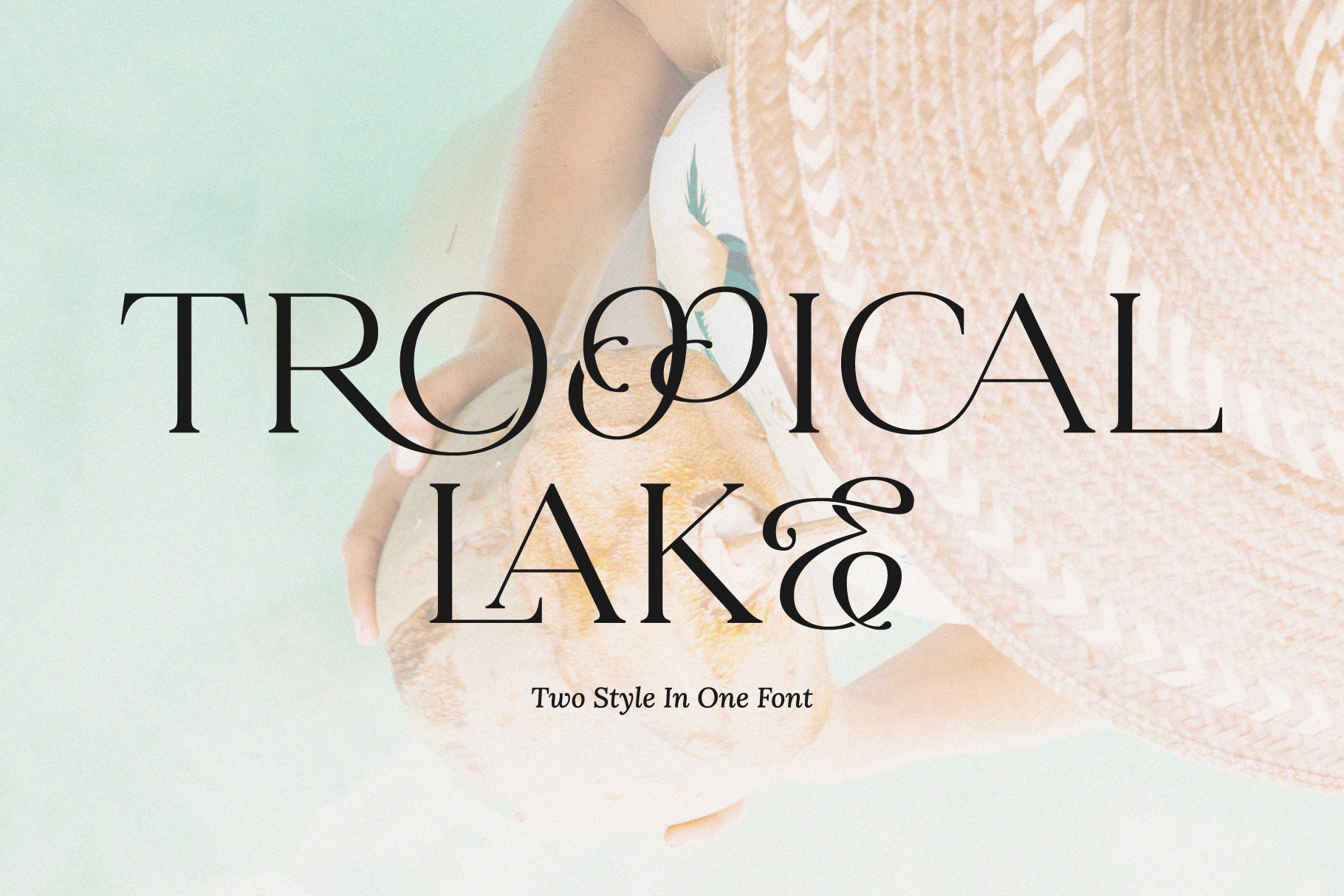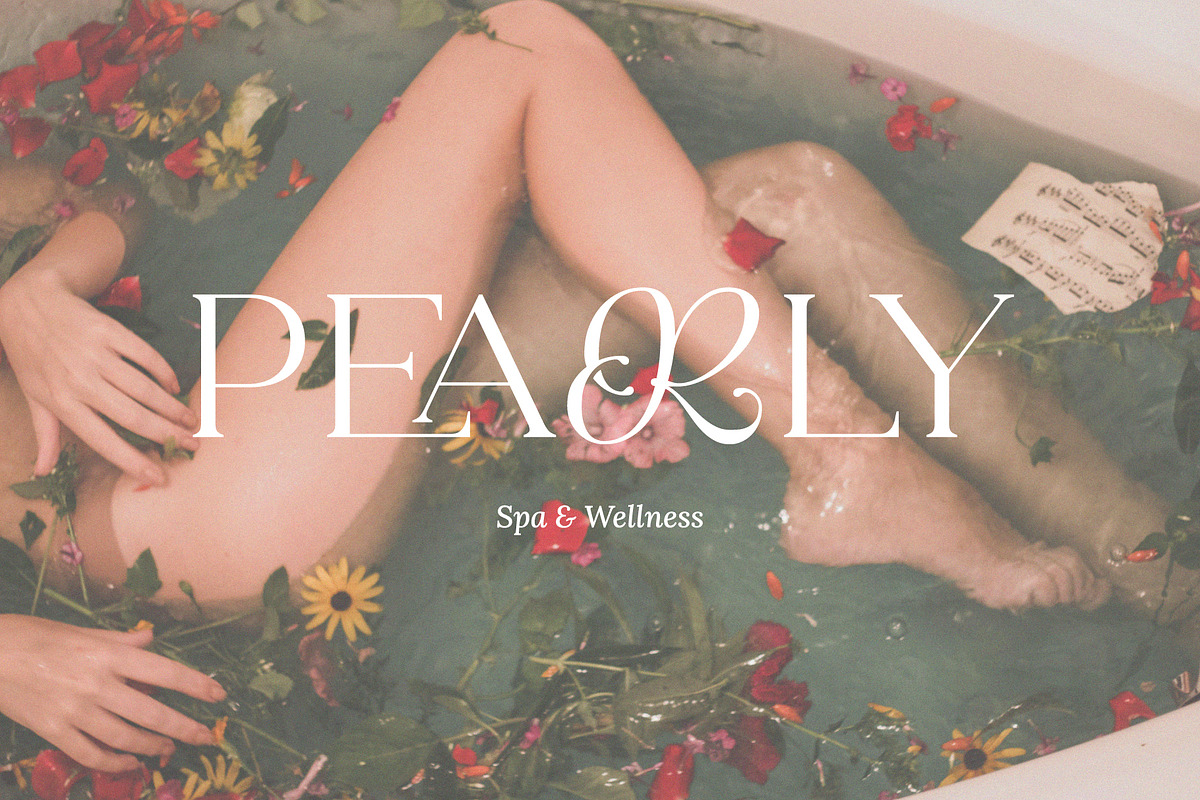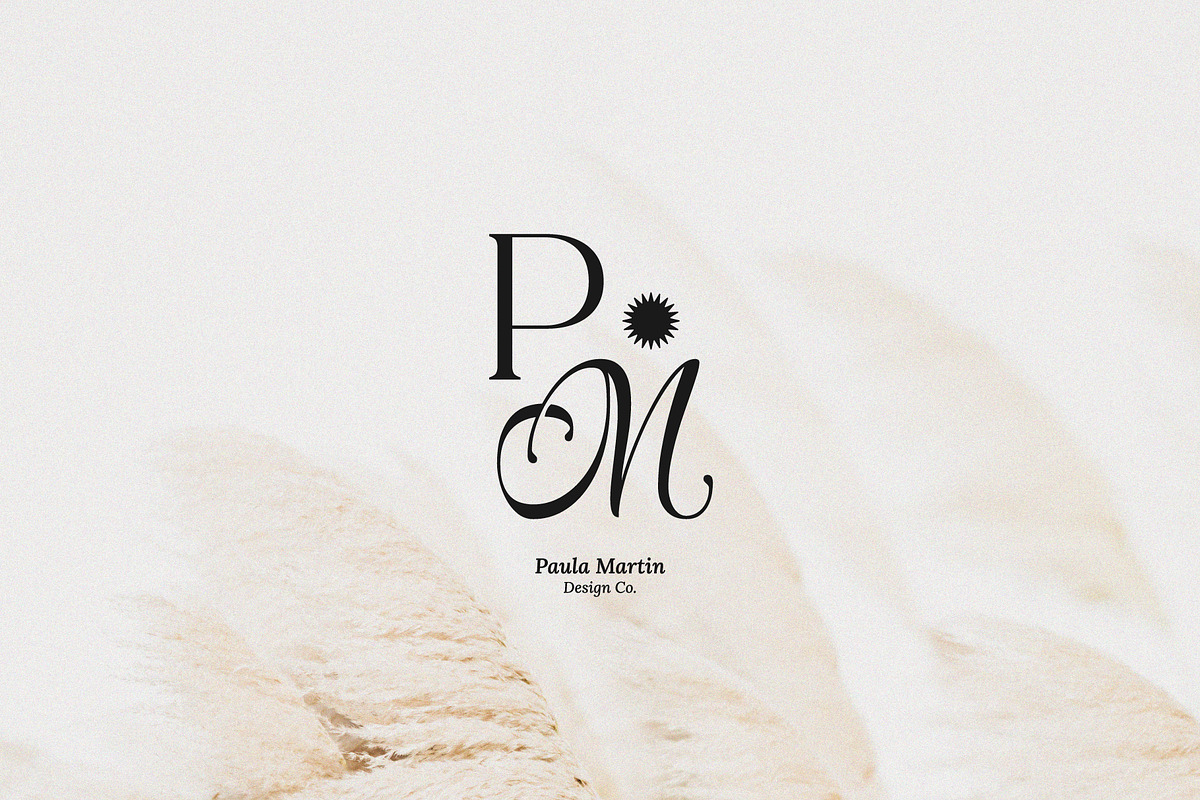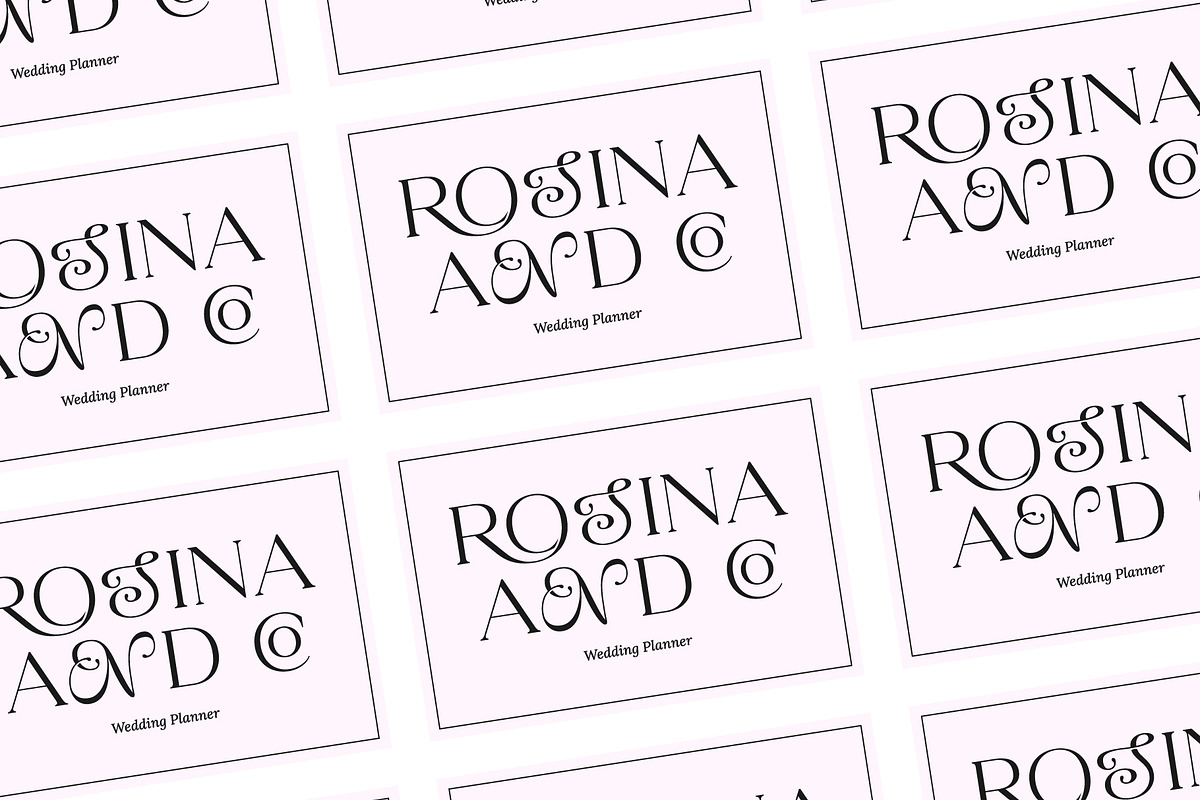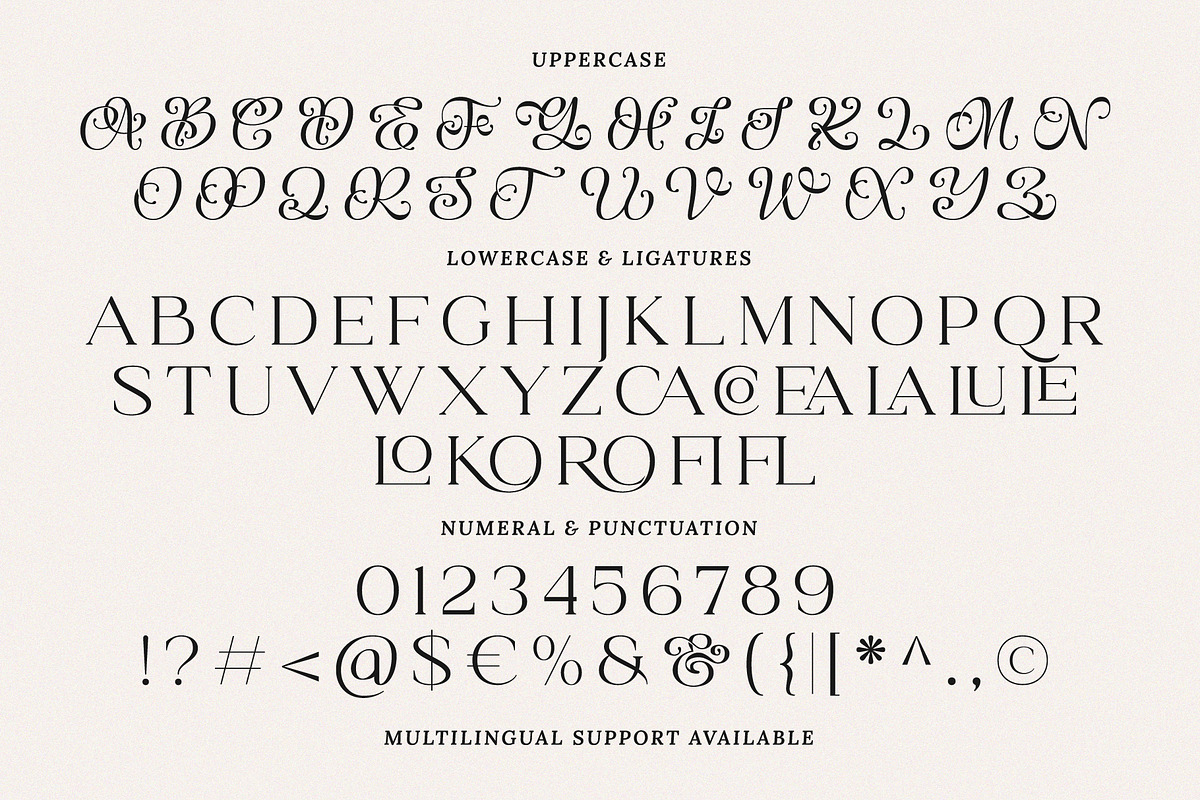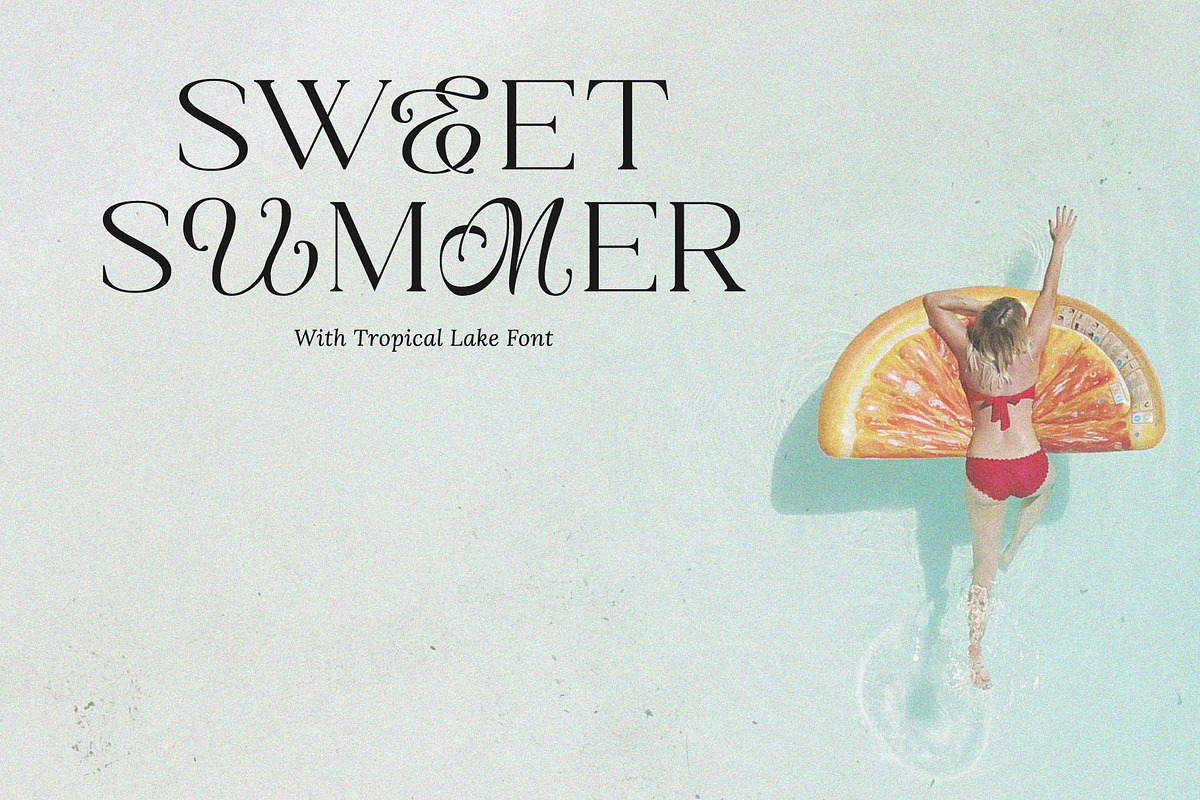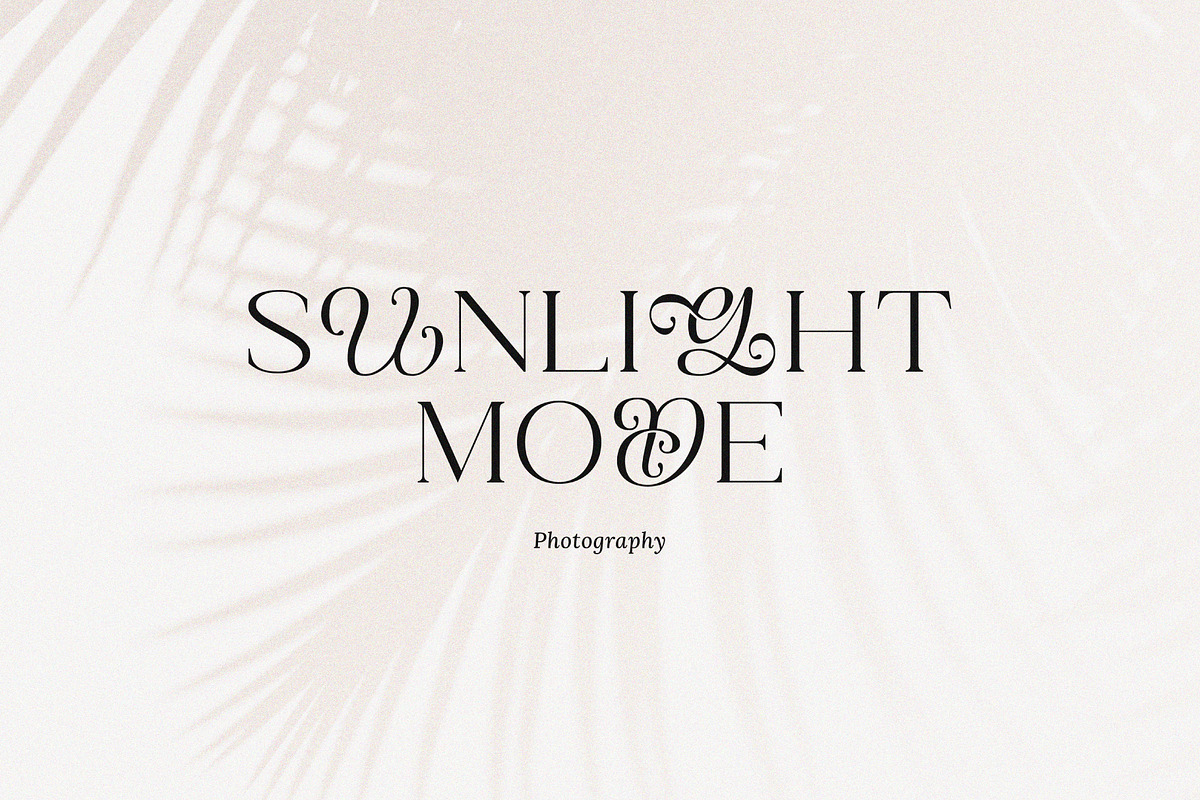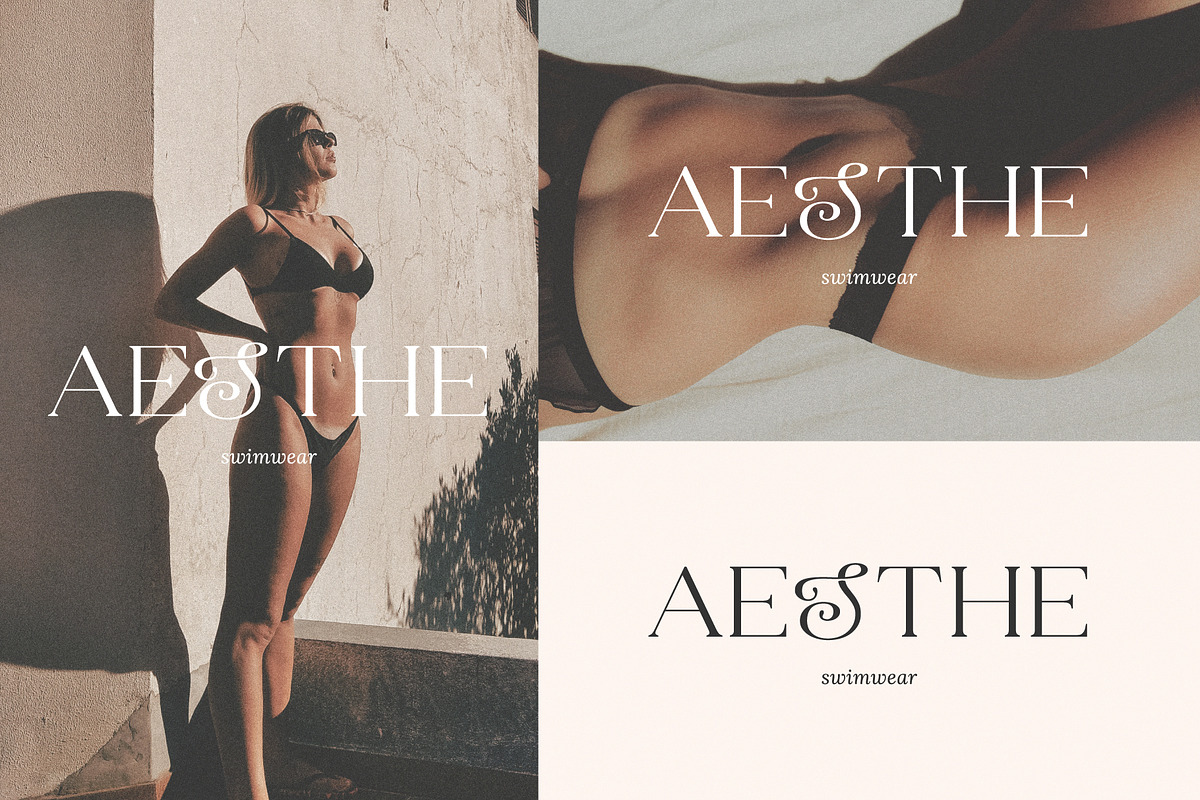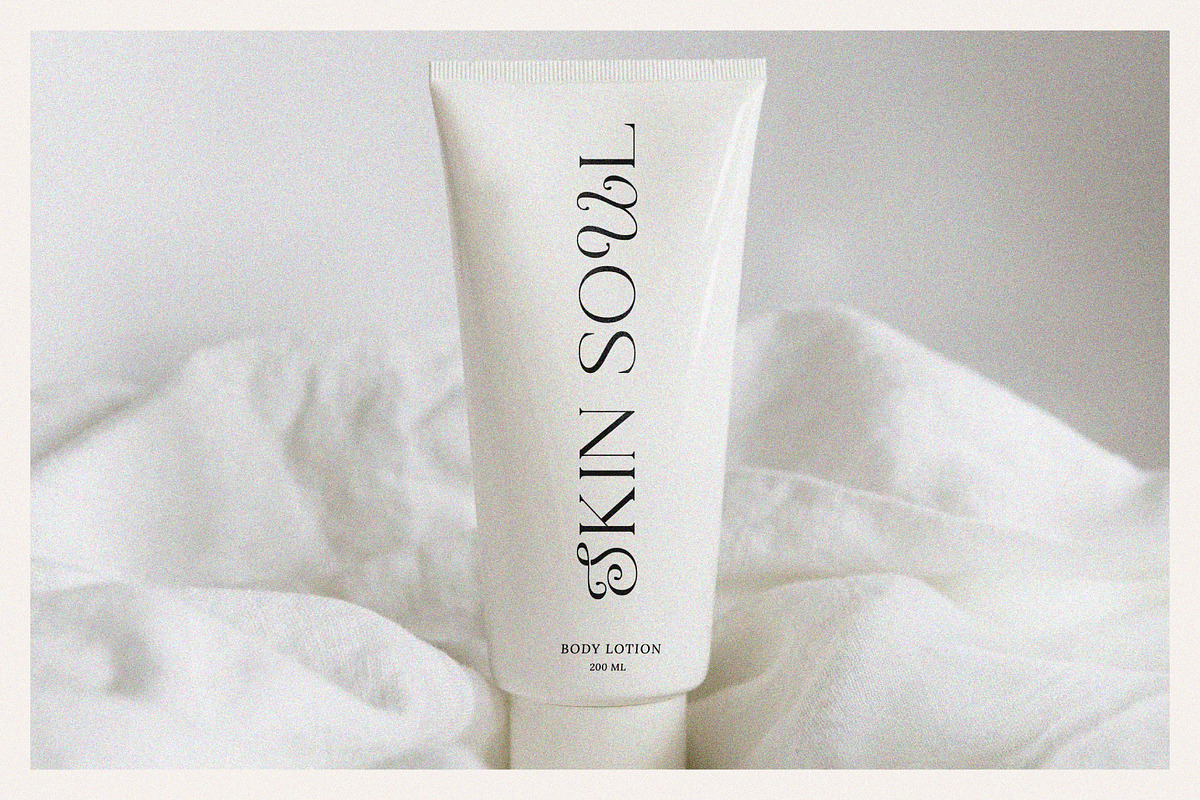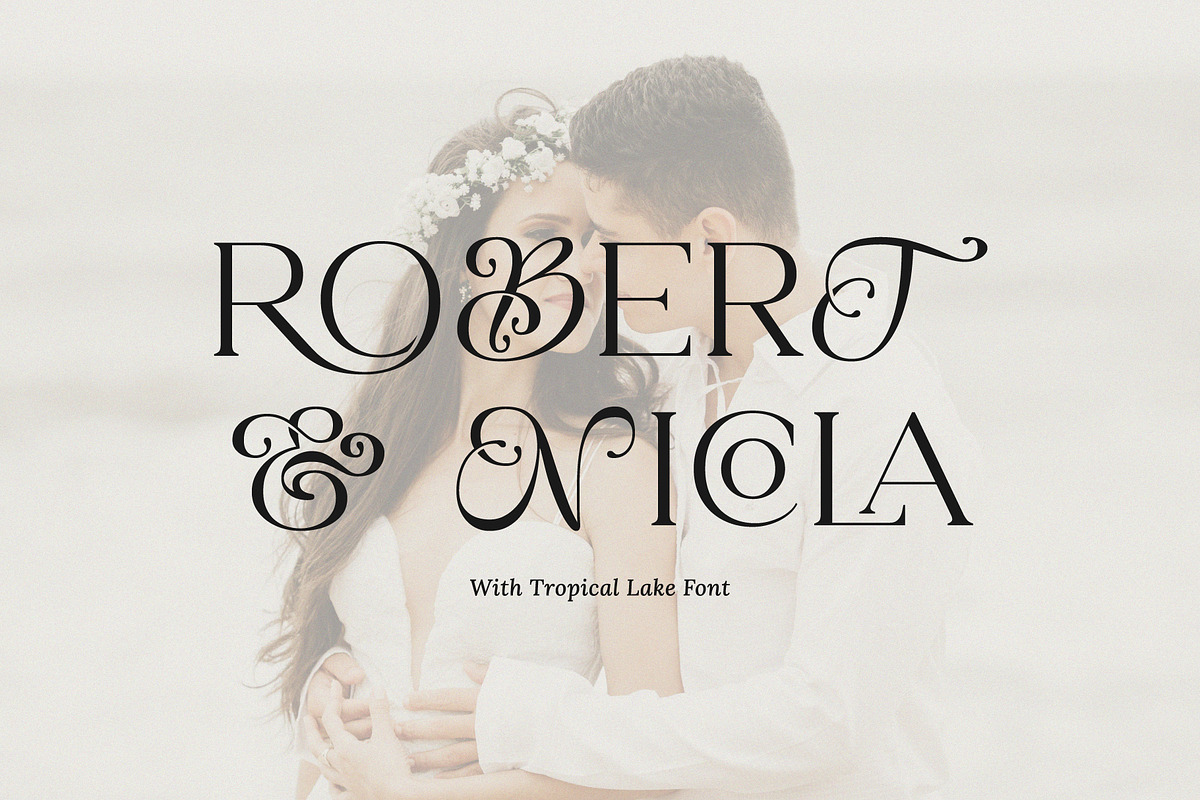
Tropical Lake - Combination Font
Tropical Lake - Two Style In One Font.
Beautiful letter combinations in one font that shortens your creative time. Perfect for branding, titles, logos, wedding invitations and more.
- Features: Uppercase, Lowercase, Numeral, Punctuation, Multilingual, Ligatures & PUA Encoded.
- Multilingual contained: Afrikaans, Albanian, Asu, Basque, Bemba, Bena, Breton, Catalan, Chiga, Cornish, Danish, Dutch, English, Estonian, Filipino, Finnish, French, Friulian, Galician, German, Gusii, Indonesian, Irish, Italian, Kabuverdianu, Kalenjin, Kinyarwanda, Luo, Luxembourgish, Luyia, Machame, Makhuwa-Meetto, Makonde, Malagasy, Manx, Morisyen, North Ndebele, Norwegian Bokmål, Norwegian Nynorsk, Nyankole, Oromo, Portuguese, Quechua, Romansh, Rombo, Rundi, Rwa, Samburu, Sango, Sangu, Scottish Gaelic, Sena, Shambala, Shona, Soga, Somali, Spanish, Swahili, Swedish, Swiss German, Taita, Teso, Uzbek (Latin), Volapük, Vunjo, Zulu.